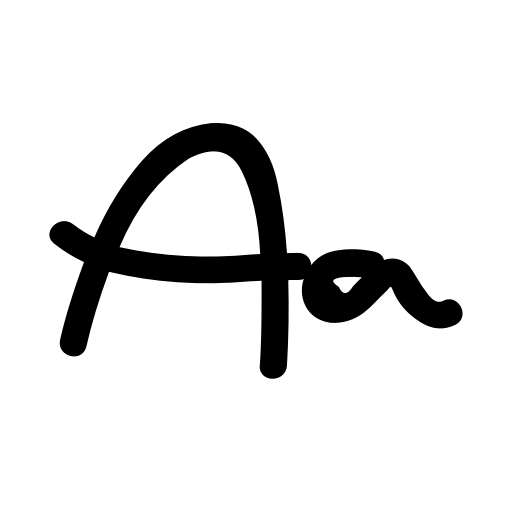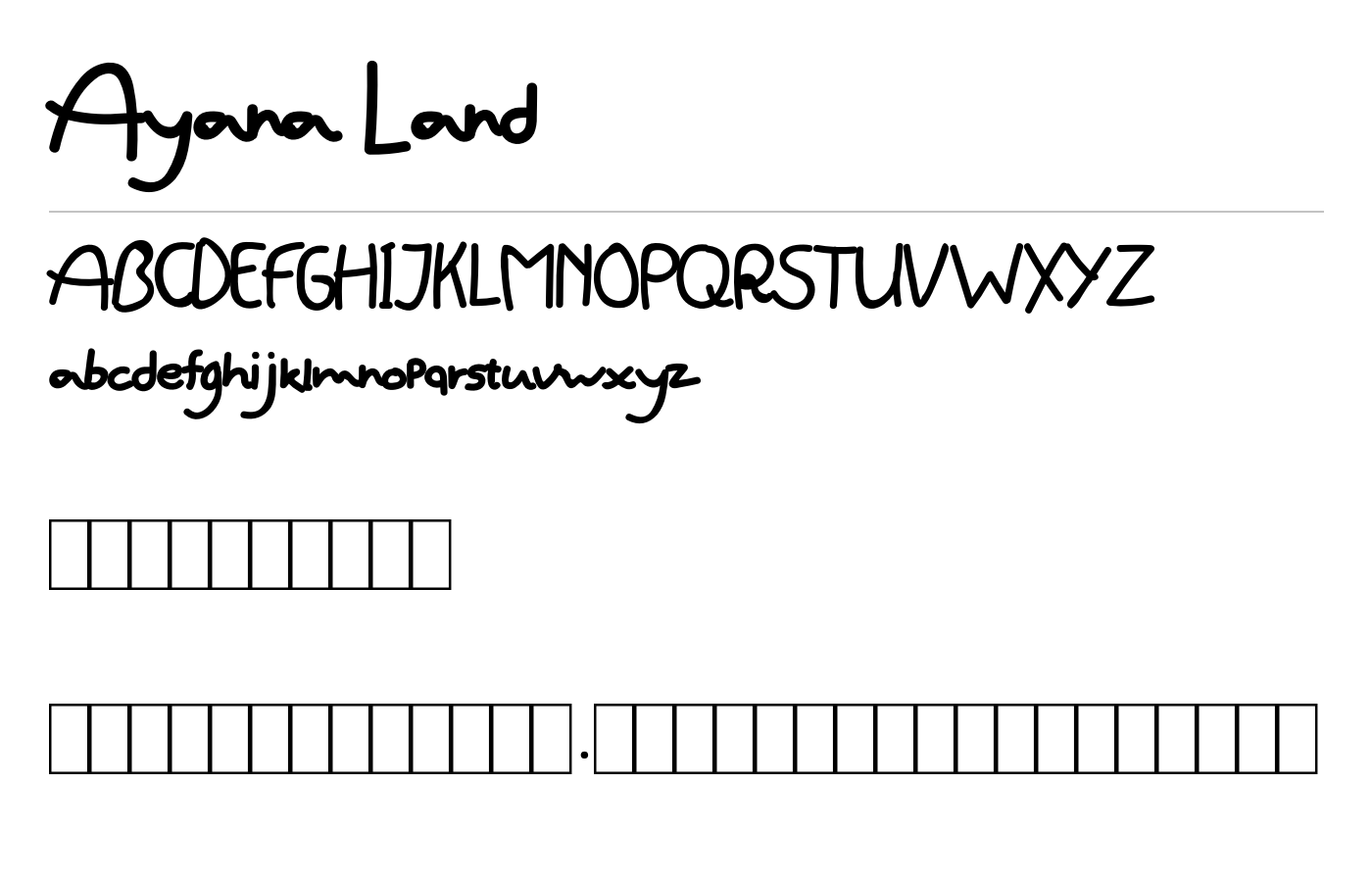
Ayana Land is a playful and casual handwritten sans serif font with a warm, friendly character. Its slightly uneven strokes and rounded shapes give it an informal, approachable feel, making it perfect for personal projects, creative branding, and fun editorial designs. This font works well in logos, invitations, and websites where a human touch and relaxed style are desired.
Ayana Land Font
About Ayana Land Font